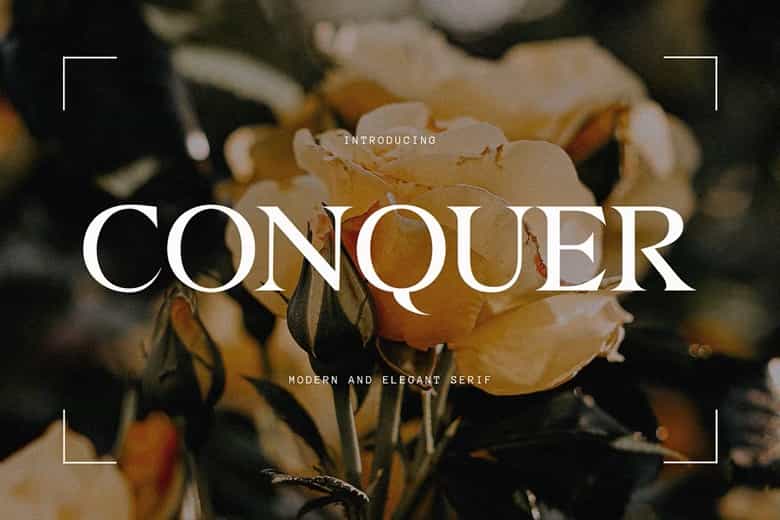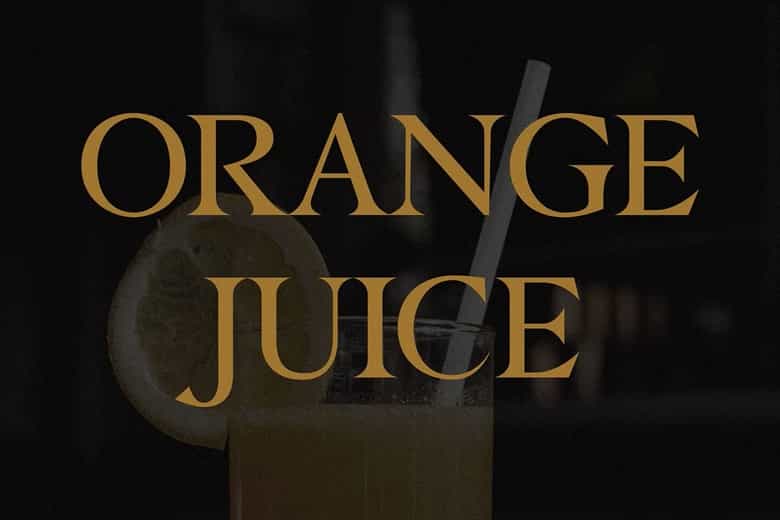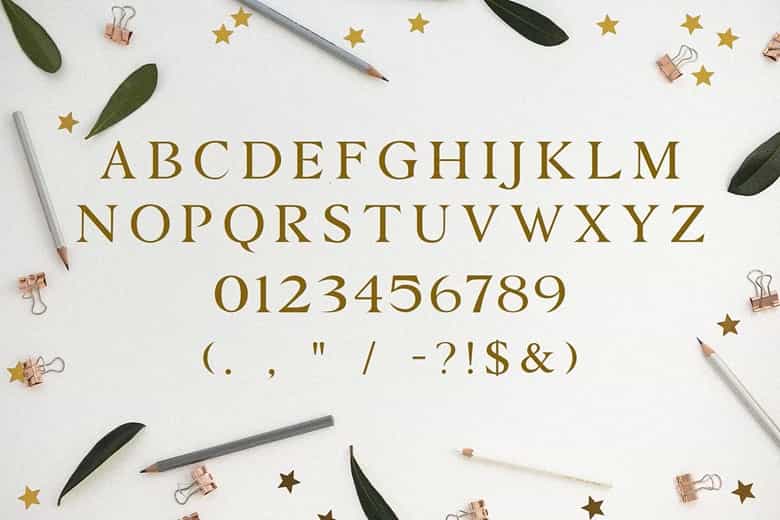
Conquer is an up-to-date and classy serif font. Created specifically for luxury, elegant, feminine projects, this font will be quite suitable for the creation of modern chic projects.